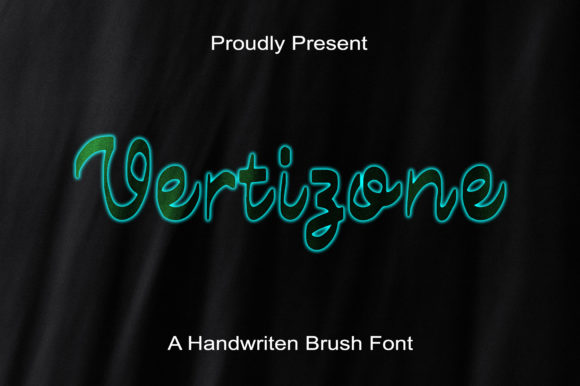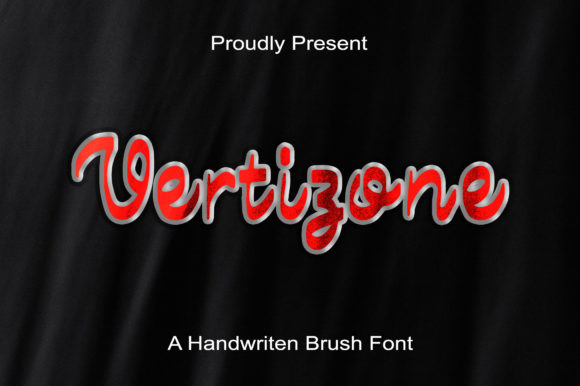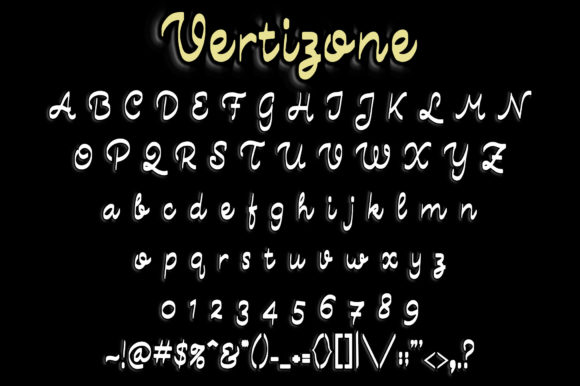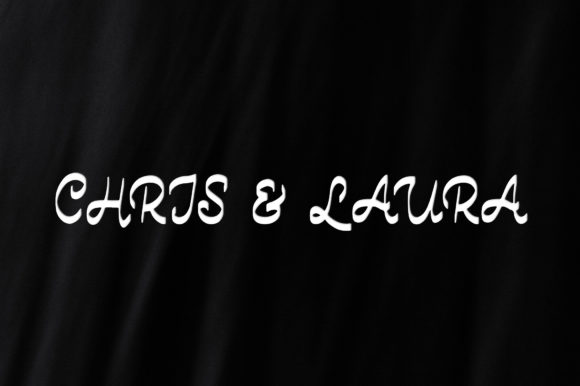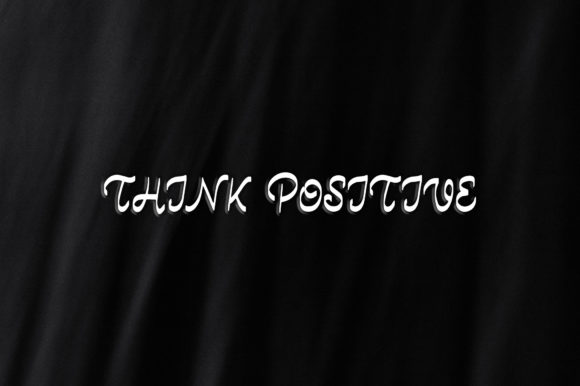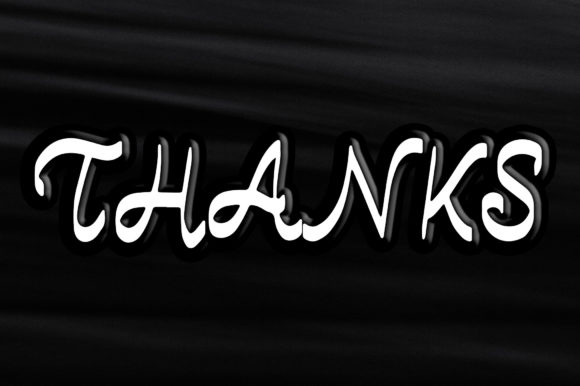
Vertizone Font
About Vertizone Font
VertizoneĀ is a chic, refined script font that emanates sophistication and elegance. Its stylish alternates and ligatures make this font the perfect match for any project.